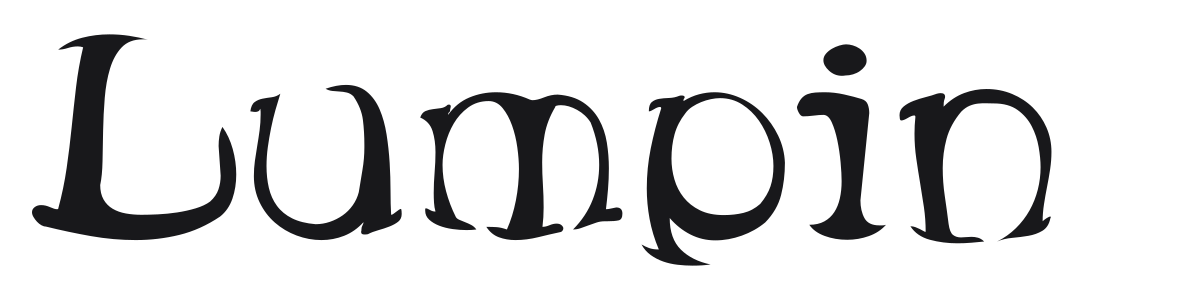
Lumpin
Lumpin is an eccentric display serif with bulbous rounded terminals and sweeping curved serifs that give it a rubbery, storybook quality. The letters bounce between wide and narrow proportions, creating an unpredictable rhythm that reads as handcrafted rather than mechanical. It channels Art Nouveau and medieval uncial influences into something genuinely strange and fun.